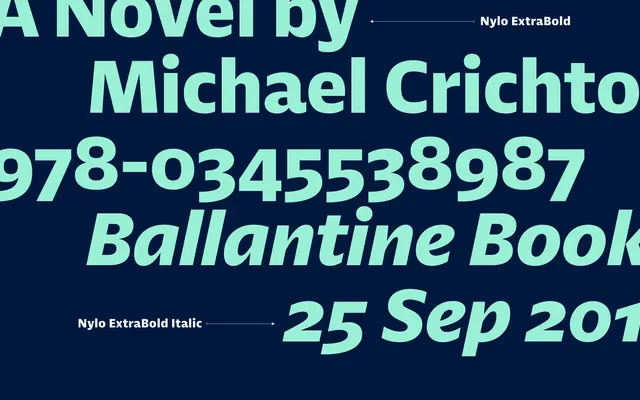
Nylo
A geometric sans with ten weights, matching italics and a generous set of OpenType alternates covering single and double-storey letterform variants.
Twenty styles run from Thin to Heavy, each with a matching italic, giving the family considerable range for both text and display use. OpenType features include alternate forms for a, g, y, l, t and M, alongside oldstyle and tabular figures, fractions and an alternate ampersand, making it adaptable to different typographic registers. The alternates allow the same typeface to shift between a strict geometric personality and a softer, more humanist one.
Nylo presents clean geometric forms with single-storey alternate glyphs available via OpenType features, typical of contemporary geometric sans families designed for versatility across weight ranges.